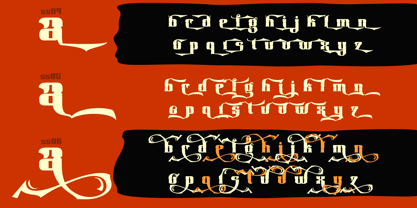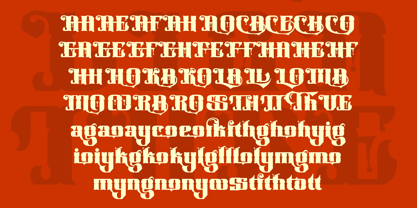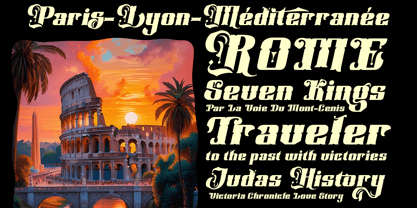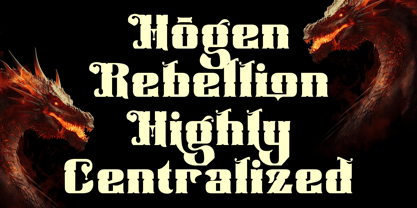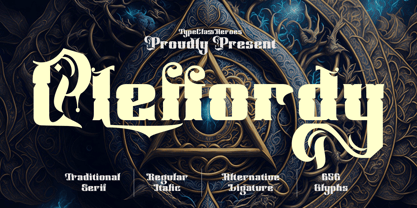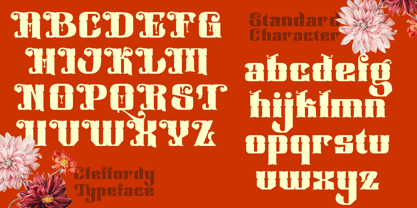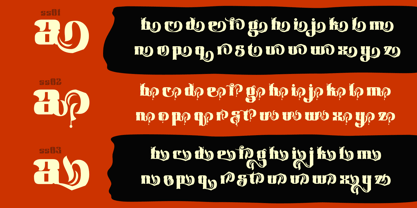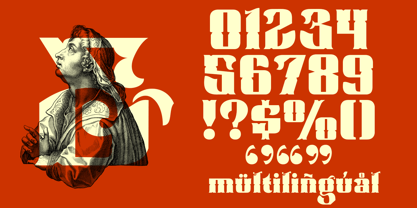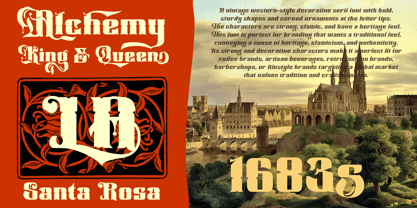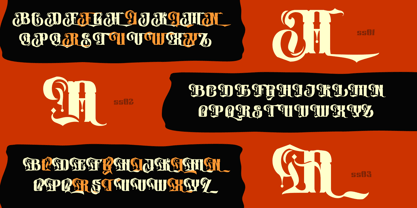
Cleffordy
Introducing Cleffordy is a vintage western style traditional serif font with bold, sturdy shapes and curved ornaments at the letter tips. The characters are strong, classic, and have a heritage feel. This font is perfect for branding that wants a traditional feel, conveying a sense of heritage, classicism, and authenticity. It's strong and decorative characters make it a perfect fit for coffee brands, artisan beverages, retro logo, barbershops, or lifestyle brands targeting a global market that values ​​tradition and craftsmanship.